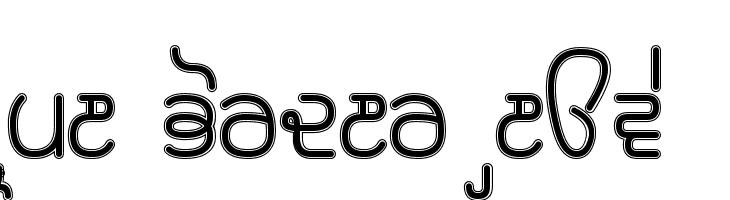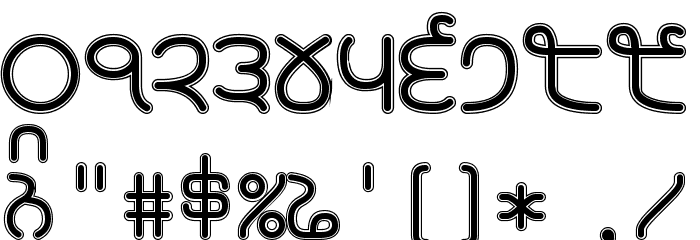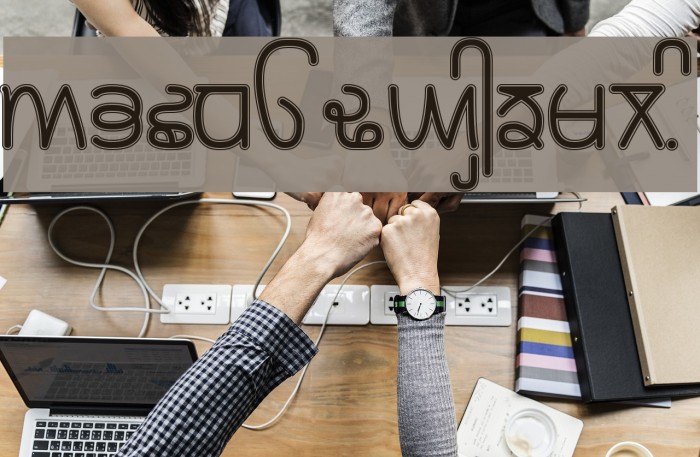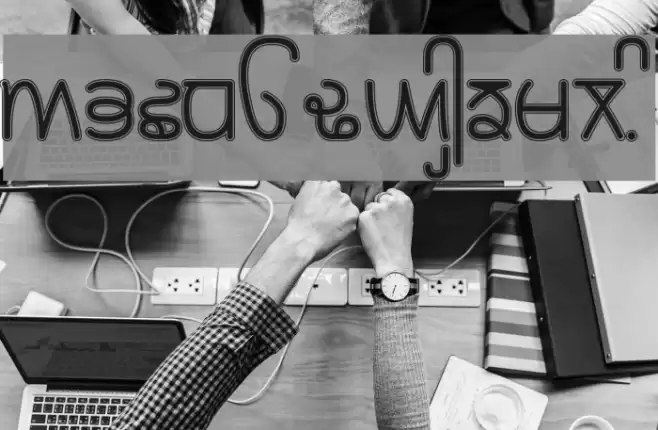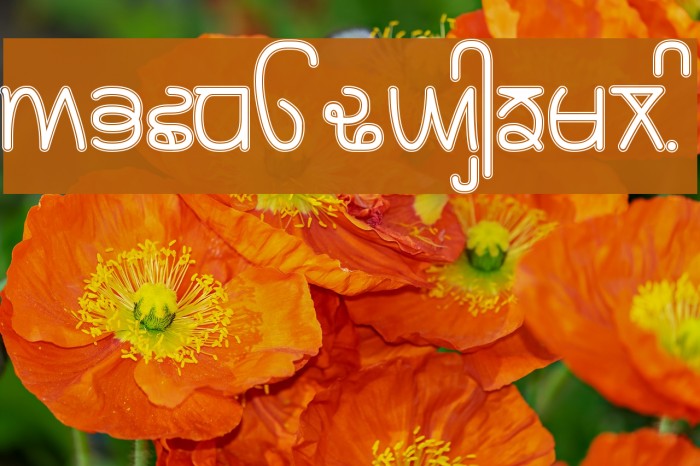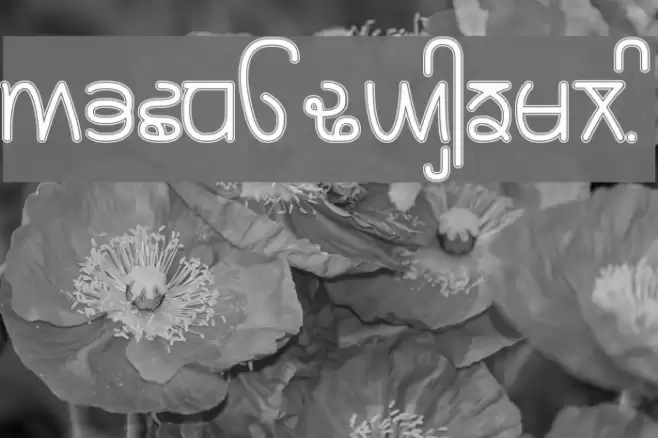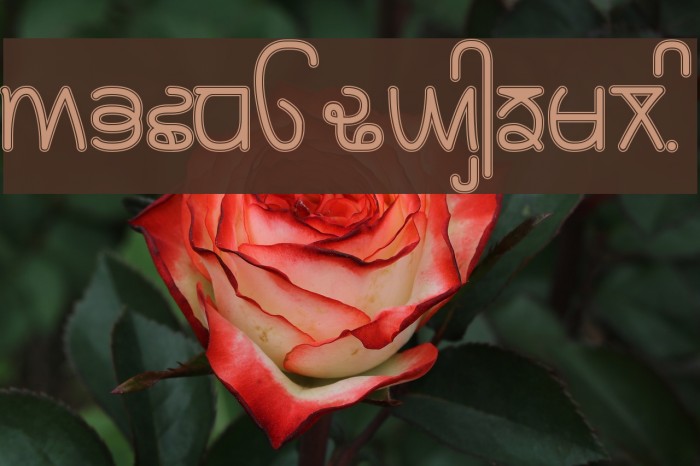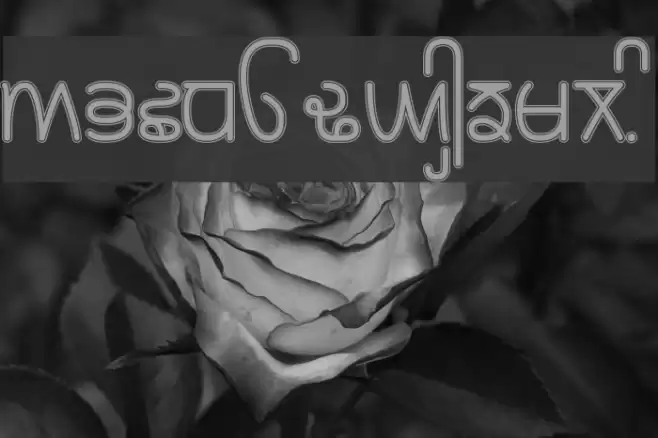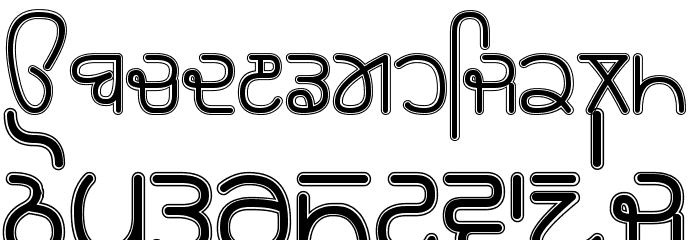
Rupe Border Heavy Font
Rupe Border Heavy Description
This font features a unique and bold design with a heavy outline that creates a striking visual impact. The characters are rounded and have a playful, almost whimsical appearance, making them stand out. The thick borders around each letter add depth and dimension, giving the font a three-dimensional look. The style is consistent across uppercase, lowercase, numbers, and special characters, maintaining a cohesive and distinctive aesthetic. The font's design is both modern and decorative, suitable for projects that require a bold statement.
| Overall Style | Modern, Decorative |
| Proposed Projects | Ideal for posters, logos, headlines, and any design project that requires a bold and eye-catching typeface. |